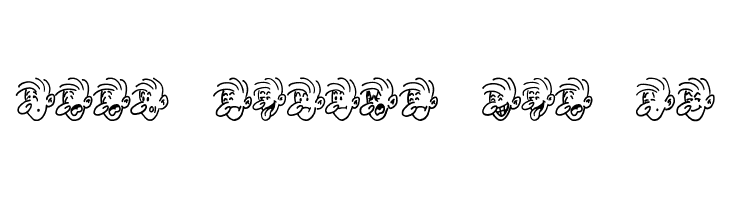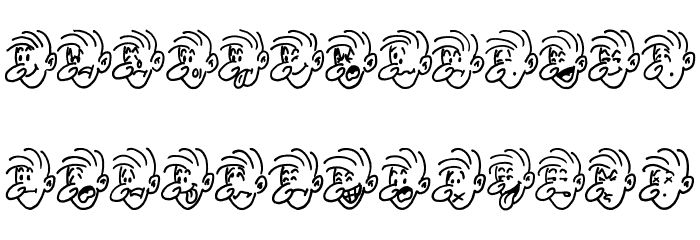
Mood Swings Two JL Font
Mood Swings Two JL Description
This is not a traditional font but rather a series of cartoonish, expressive faces representing different moods. Each character is a unique illustration of a face with varying expressions, capturing a wide range of emotions. The style is playful and whimsical, with bold lines and exaggerated features that convey the mood effectively. The characters are consistent in style, maintaining a cohesive look across the set. This design is more of a decorative or illustrative element rather than a functional typeface for text.
A series of cartoon faces depicting various moods, designed as decorative elements from Dingbats fonts.
- Proposed Projects: Ideal for comic strips, children's books, playful graphic designs, or any project requiring expressive, illustrative elements.
- Overall Style: Playful, Whimsical
- Use Case: Decorative elements, Illustrations